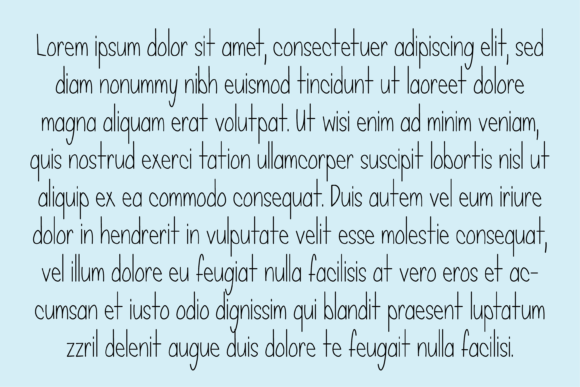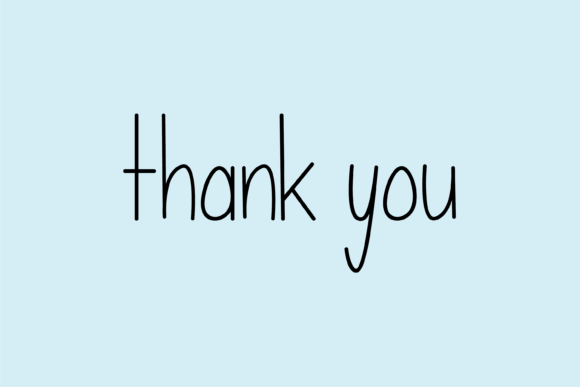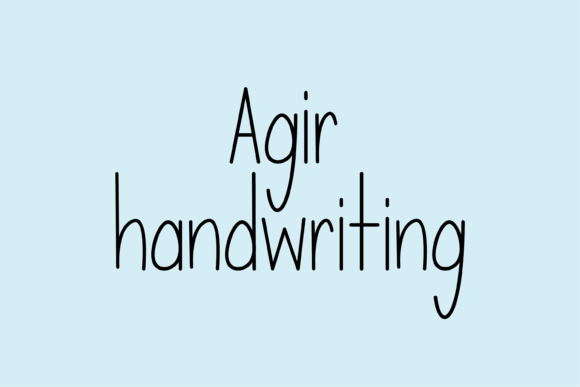
Discover the Charm of Agir Font: A Simple yet Whimsical Handwritten Typeface
Are you tired of using the same old fonts in your designs? Look no further than Agir Font, a simple and friendly handwritten typeface that’s sure to brighten up your projects. With its whimsical and quirky charm, Agir Font is perfect for designers and crafters looking to add a touch of personality to their work.
What is Agir Font?
Agir Font is a beautifully crafted handwritten font that’s designed to be both simple and elegant. Its unique blend of curves and lines creates a distinctive look that’s both eye-catching and easy to read. Whether you’re working on a logo, wedding invitation, quote, advertisement, or any other design project, Agir Font is the perfect choice.
Key Features of Agir Font
- Simple and Friendly: Agir Font has a warm and approachable feel that’s perfect for designs that need a personal touch.
- Whimsical and Quirky: With its unique blend of curves and lines, Agir Font adds a touch of playfulness to any design.
- Highly Versatile: Agir Font is perfect for a wide range of design projects, from logos and wedding invitations to quotes, advertisements, and more.
- Easy to Read: Despite its whimsical nature, Agir Font is surprisingly easy to read, making it perfect for designs that need to communicate a message.
Agir Font is a highly versatile typeface that can be used in a wide range of design projects. Here are just a few ideas to get you started:
- Logos: Add a touch of personality to your logo with Agir Font, perfect for businesses that want to stand out from the crowd.
- Wedding Invitations: Make your wedding invitation truly special with Agir Font, adding a touch of whimsy and romance to your big day.
- Quotes: Use Agir Font to add a touch of elegance and sophistication to your quotes, perfect for social media, blogs, or print.
- Advertisements: Grab attention with Agir Font, perfect for advertisements that need to stand out from the crowd.
- Print and Magazines: Add a touch of personality to your print designs, from magazines to brochures, with Agir Font.
Why Choose Agir Font?
With so many fonts to choose from, why should you choose Agir Font? Here are just a few reasons:
- Unique and Eye-Catching: Agir Font has a unique and eye-catching design that’s sure to grab attention.
- Easy to Use: Agir Font is surprisingly easy to use, even for designers who are new to handwriting fonts.
- Highly Versatile: Agir Font can be used in a wide range of design projects, from logos to print and digital designs.
Agir Font is a simple yet whimsical handwritten typeface that’s perfect for designers and crafters looking to add a touch of personality to their work. With its unique blend of curves and lines, Agir Font is sure to brighten up any design project. Whether you’re working on a logo, wedding invitation, quote, advertisement, or any other design project, Agir Font is the perfect choice. So why wait? Download Agir Font today and start creating stunning designs that will leave a lasting impression!